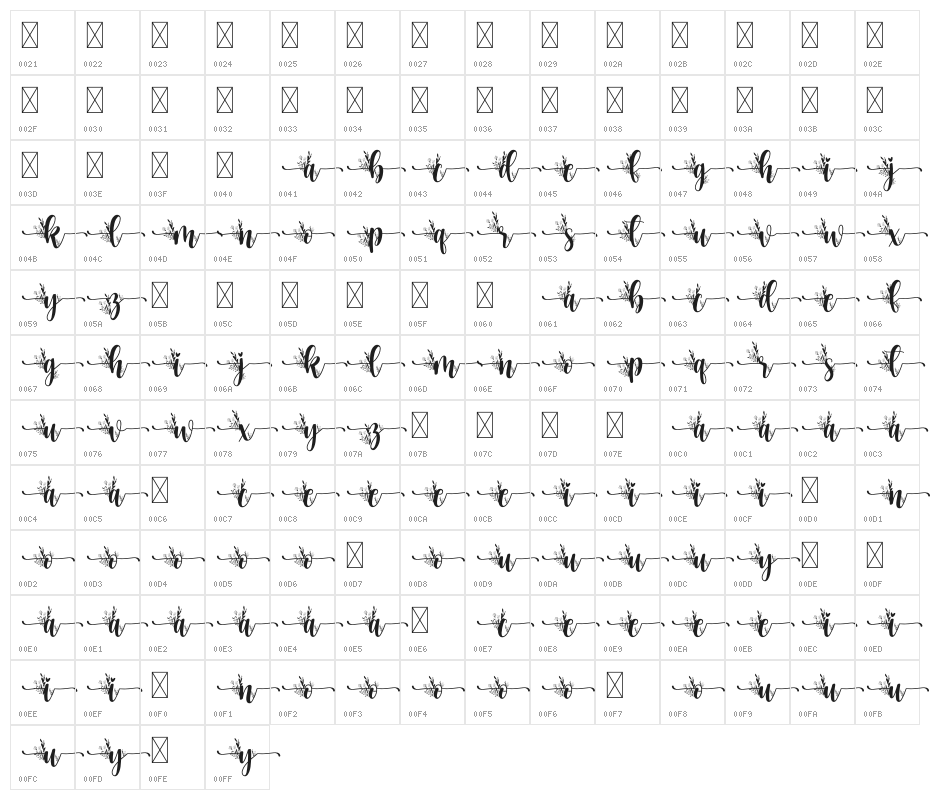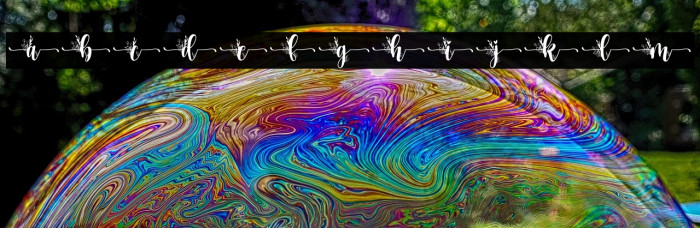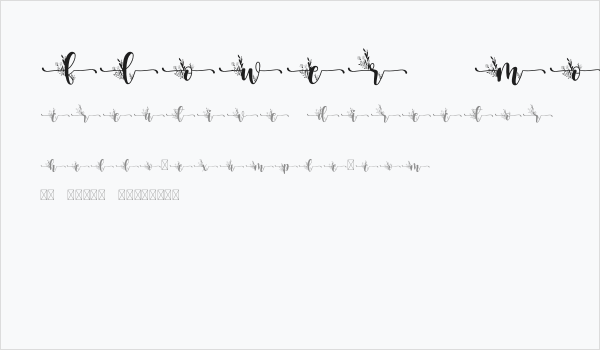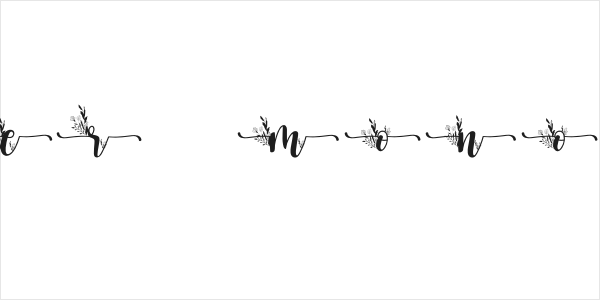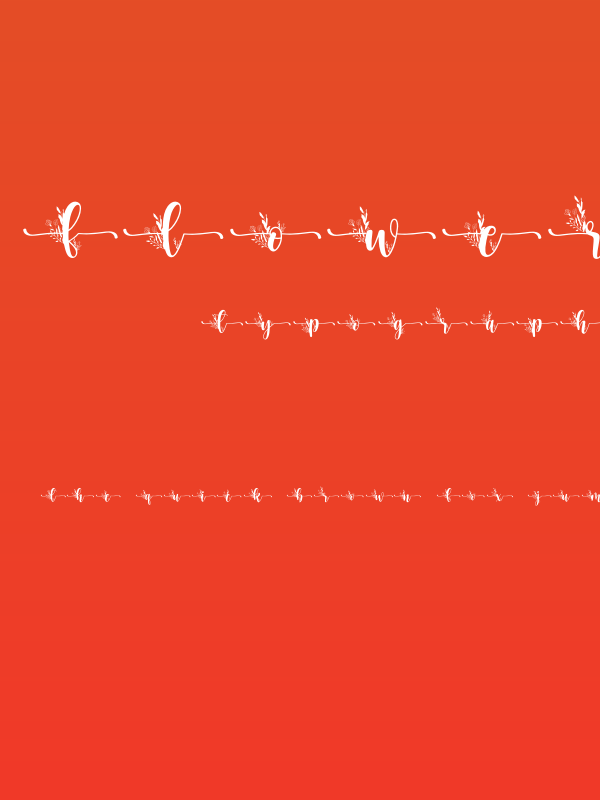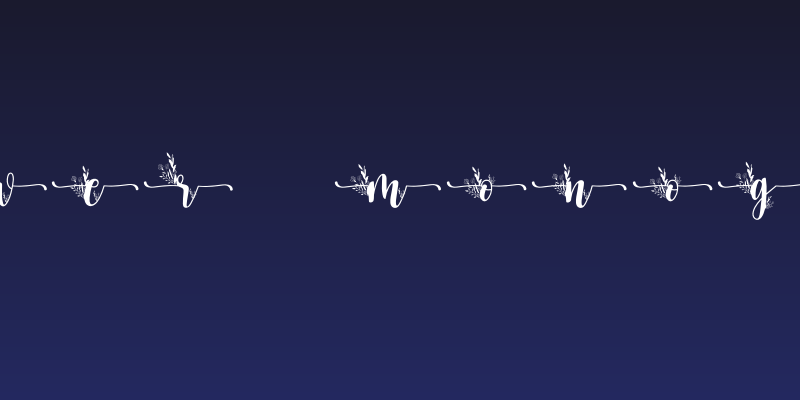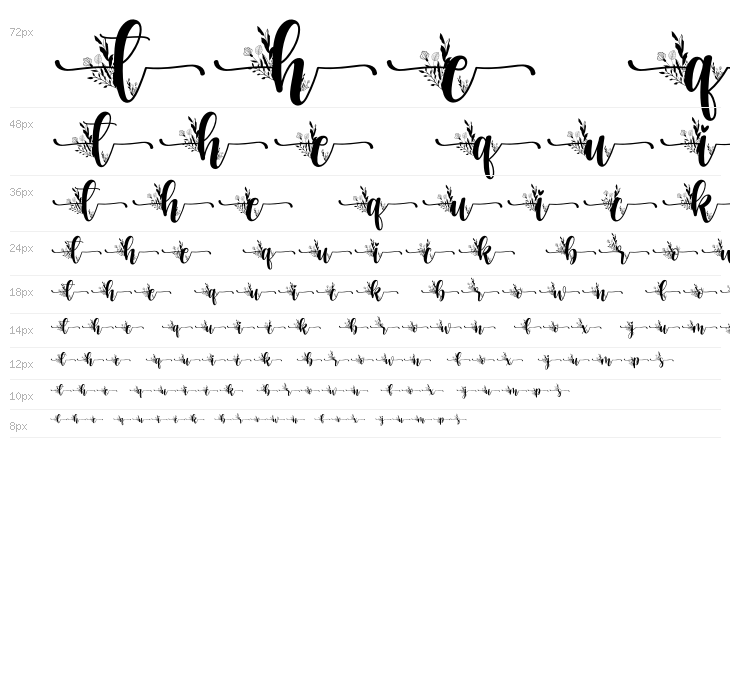
Flower Monogram Font
Flower Monogram Description
This font is an elegant and decorative script style that incorporates floral elements into each character, creating a unique and artistic appearance. The letters are intertwined with delicate floral motifs, giving them a whimsical and organic feel. The strokes are smooth and flowing, with a consistent thickness that adds to the overall harmony of the design. This font is perfect for projects that require a touch of nature and sophistication, such as wedding invitations, greeting cards, or branding for eco-friendly products. The intricate details of the floral elements make each letter stand out, while maintaining a cohesive look across the entire alphabet.
| Proposed Projects | Wedding invitations, greeting cards, eco-friendly branding, decorative prints. |